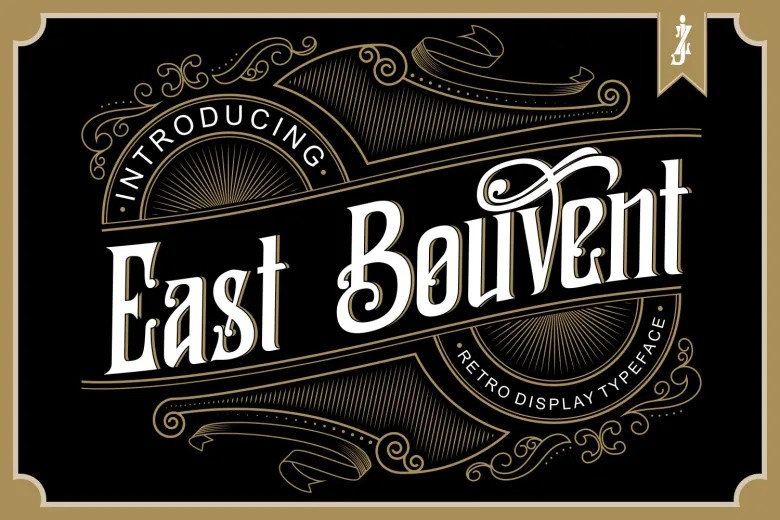
East Bouvent Font
East Bouvent is a luxurious typeface inspired by retro vintage styles and Victorian calligraphy, offering a perfect blend of historical sophistication and contemporary usability. This font is characterized by its elegant details and refined lines, making it ideal for high-end design projects that require a touch of timeless elegance.
Perfect for product labeling, advertising, and interior decoration, East Bouvent brings a unique retro flair to a variety of creative applications. Its ability to evoke a sense of history and luxury makes it an excellent choice for designers looking to create memorable, stylish work. Whether used in branding or packaging, the font maintains a sense of class and elegance across different media.
East Bouvent’s versatility and historical charm make it a standout option for designers seeking to blend classic aesthetics with modern design needs. Its sophisticated and retro appeal enhances any project, from signage to advertising campaigns, ensuring a polished and luxurious final product.